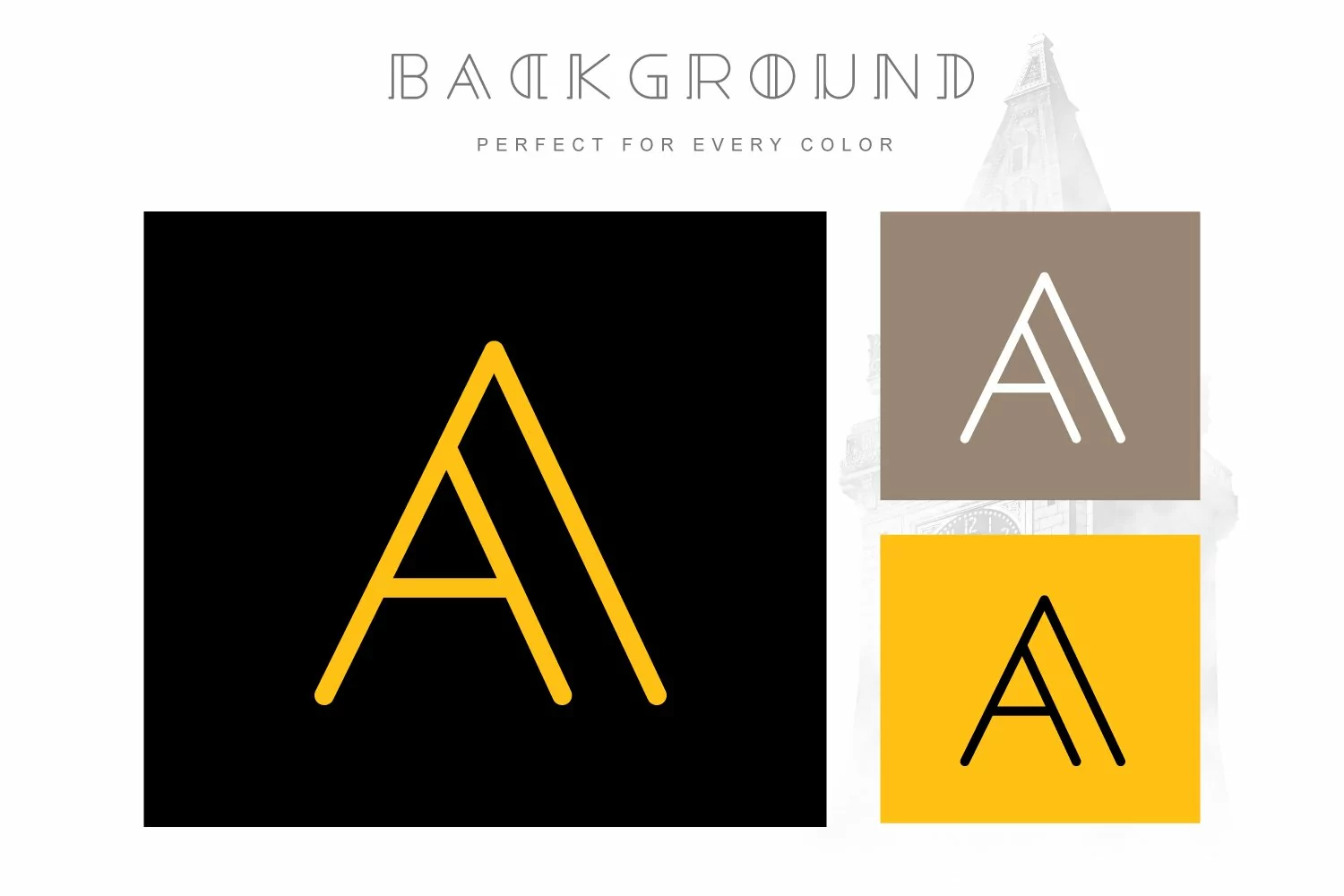
Tower - Minimal Brand Font
Looking for Perfect blend of Modern, Minimal and Sophisticated Font for any company? Today, I have a special Uppercase Letter A-Z Font with premium look and advance benefits.
Every Font Alphabets is Logo:
You can almost make amazing minimal logos from this font. Just select the letter and add your text. You can check the example above made from this logo.